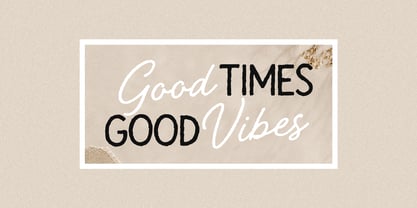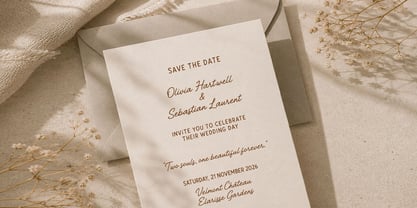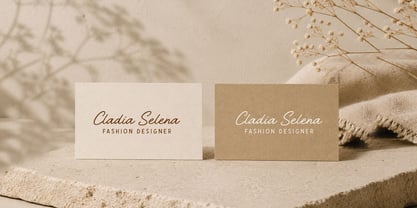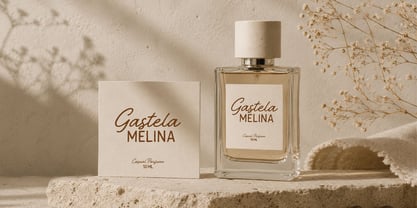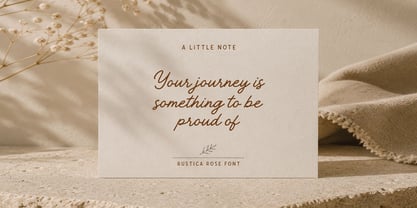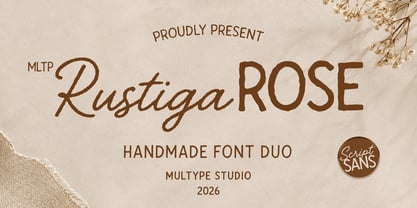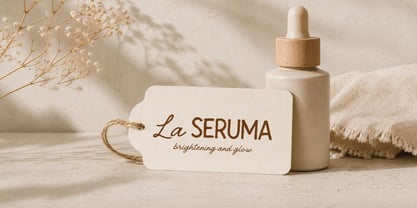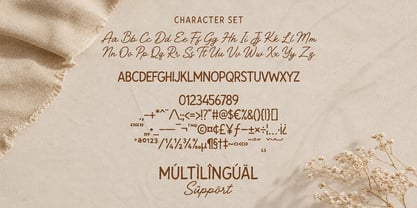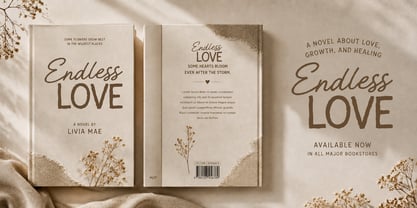
MLTP Rustiga Rose
A família de fontes MLTP Rustiga Rose foi desenhada por Mulia Yanto e publicada pela Multype Studio. MLTP Rustiga Rose contém 2 estilos e opções de pacote familiar. Saiba mais sobre esta família
MLTP Rustiga Rose is a handcrafted font duo that combines the expressive beauty of a natural script with the strong simplicity of a bold sans serif. Inspired by authentic handwriting, rustic elegance, and modern creative branding, this versatile typeface pairing delivers a warm, organic, and memorable visual personality.
The script style features fluid strokes, natural movement, and expressive letterforms that create an effortless handwritten appearance, while the bold sans serif adds contrast, clarity, and a contemporary edge. Together, they create a balanced typography combination for logos, branding, packaging, product labels, social media, invitations, posters, apparel, photography, and handmade products.
MLTP Rustiga Rose is ideal for designers and creatives looking for a stylish handwritten script and bold sans serif font duo that feels both rustic and modern. Whether used together or separately, this font duo helps create distinctive branding with personality, authenticity, and strong visual impact.
Designers: Mulia Yanto